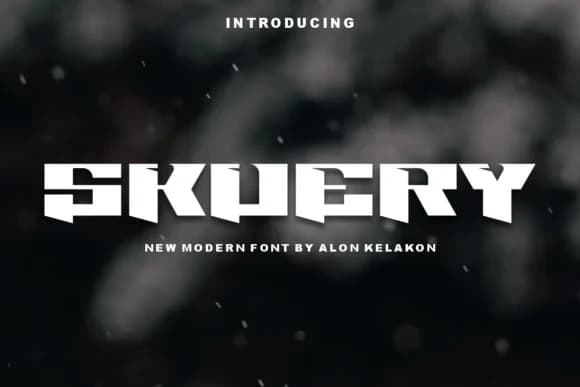
Skuery, the slab serif by alonkelakon, strikes a deliberate balance between visual strength and unflinching legibility. Its hefty serifs and pronounced horizontal strokes create commanding presence that remains crystal-clear whether displayed at poster scale or compressed into dense editorial layouts. The geometry feels distinctly modern: it works equally well in sleek tech interfaces, editorial design systems, sophisticated branding work, and any application where visual authority needs to land hard.
Where Skuery truly shines is in high-impact contexts. Gaming title cards, album artwork, product packaging labels, and logo systems all deploy this typeface to create immediate visual hierarchy. Tech startups use it to project authority without pretension in their identity systems. Boutique fashion brands, music labels, and lifestyle companies choose it precisely for that confident, dimensional voice. Magazine mastheads and band posters show off the weighted geometry beautifully. Environmental graphics and street signage benefit from its clean proportions and legibility at distance. The typeface commands attention while staying refined, never veering into crude or overworked territory.
Skuery Font is a slab serif font that shines as a display or heading face. Pair it with a clean sans-serif or serif font for body text β the contrast creates a clear hierarchy while the two styles stay balanced and easy to read.